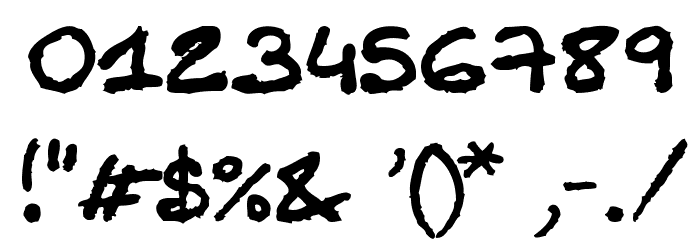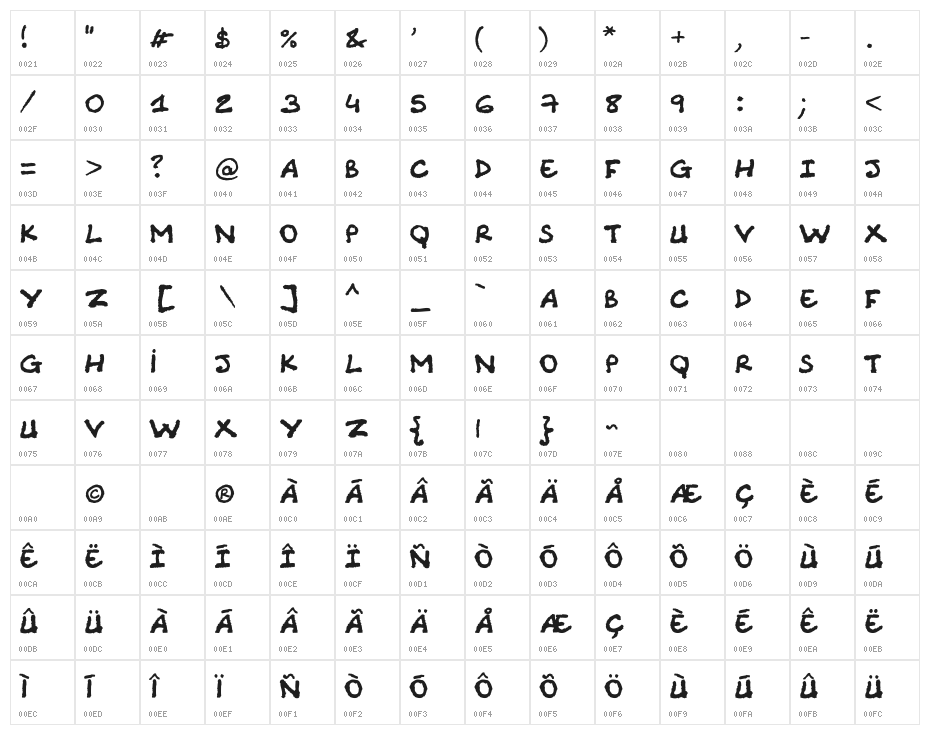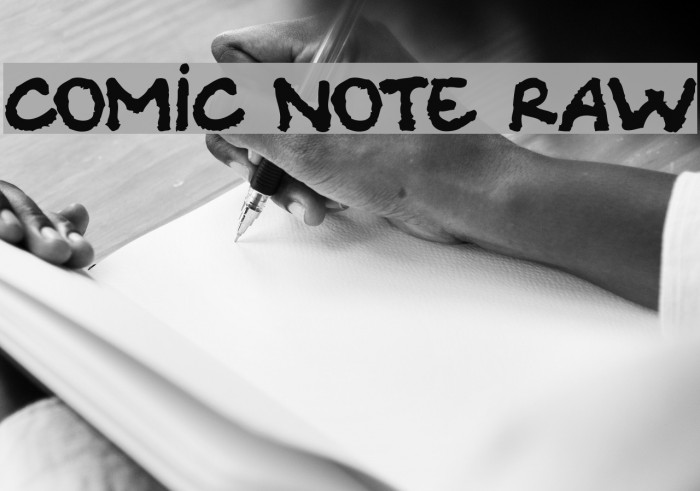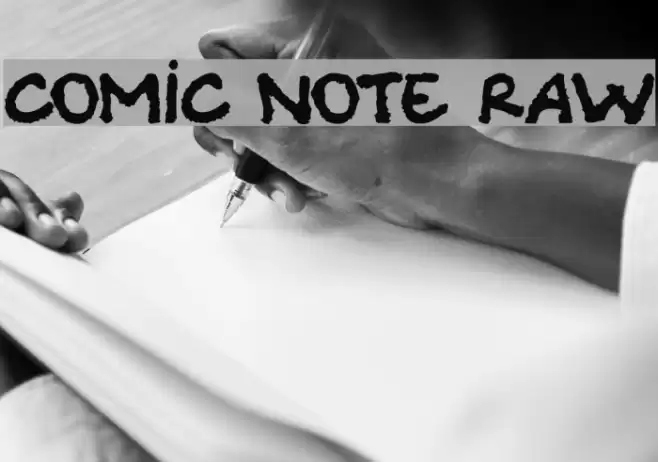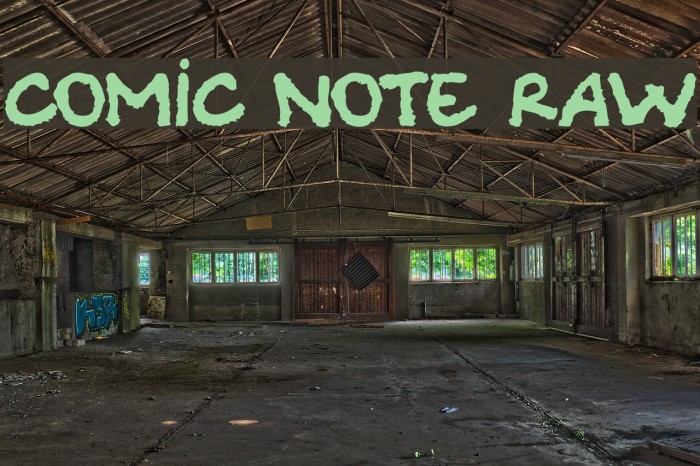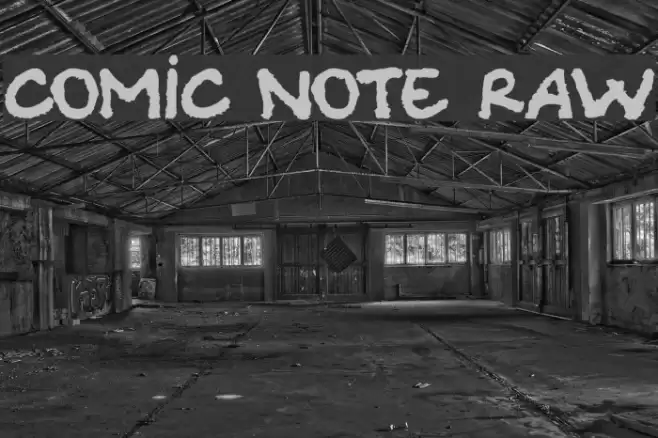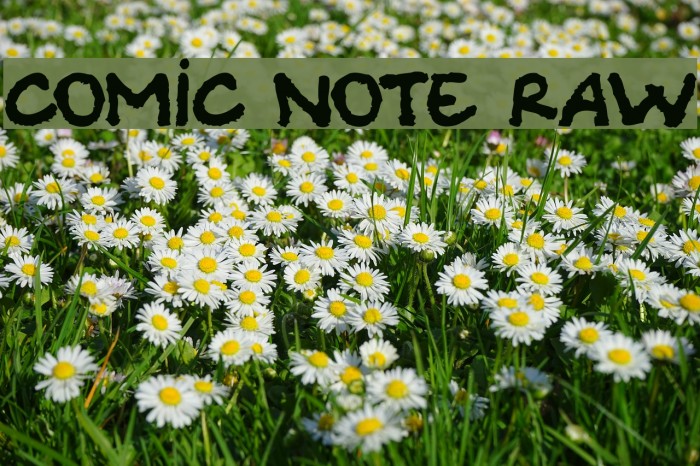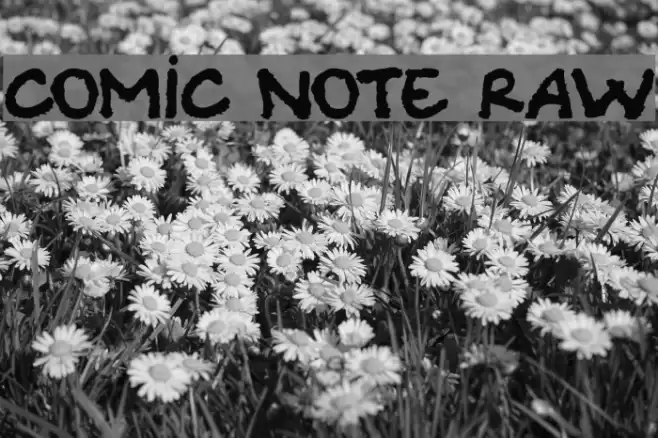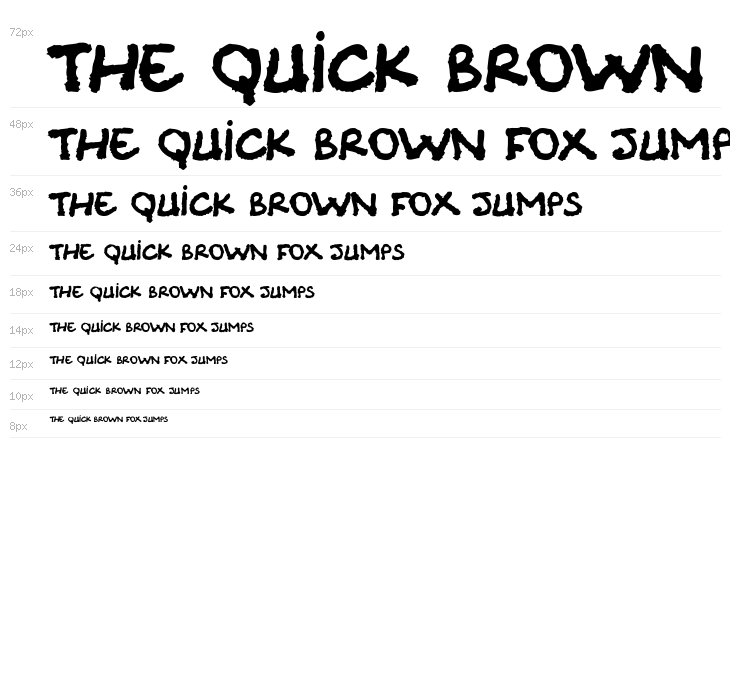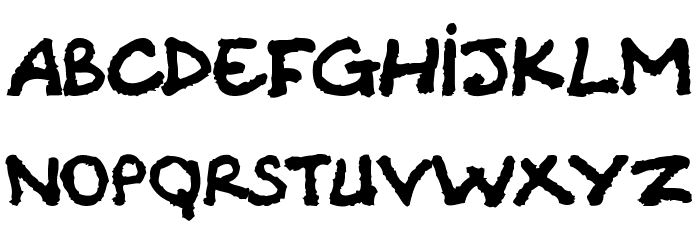
Comic Note Raw Font
Comic Note Raw Description
This font features a playful, handwritten style with bold, irregular strokes that give it a casual and dynamic appearance. The characters are slightly slanted, adding to the informal feel. The uppercase and lowercase letters maintain a consistent style, with rounded edges and varying stroke thickness that mimic the look of a marker or brush pen. The numerals and special characters follow the same aesthetic, ensuring a cohesive look across all text. This font is ideal for projects that require a fun and approachable tone.
| Overall Style | Playful, Casual |
| Proposed Projects | Ideal for comic books, children's books, playful branding, greeting cards, and informal invitations. |